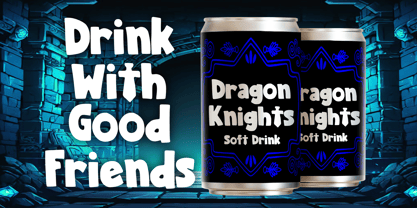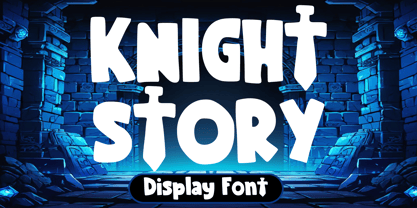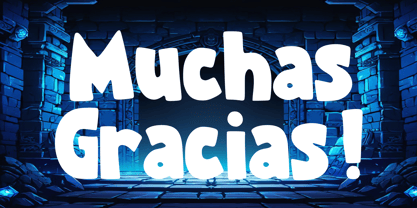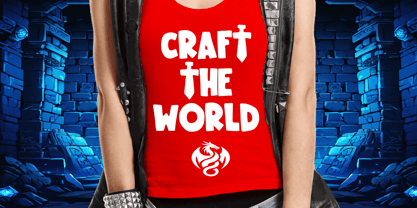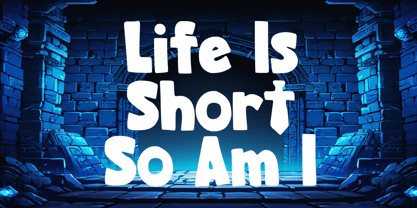
Knight Story
La famille de polices Knight Story a été conçue par Gabriel Valentinus et publiée par Mvmet. Knight Story contient 1 styles. En savoir plus sur cette famille
Embrace the enchantment of whimsy and adventure with this captivating fantasy-style font. Inspired by popular knight, dragon, and castle-themed video games, this playful typeface adds joy and excitement to your projects. Its versatile design enhances a variety of creations—whether bold t-shirts, enchanting children’s books, eye-catching game designs, friendly greeting cards, quirky stickers, or stunning posters. This font uniquely infuses a thrilling sense of adventure into your work, making it perfect for branding, editorial use, and more. Let its distinctive style charm and inspire your designs!